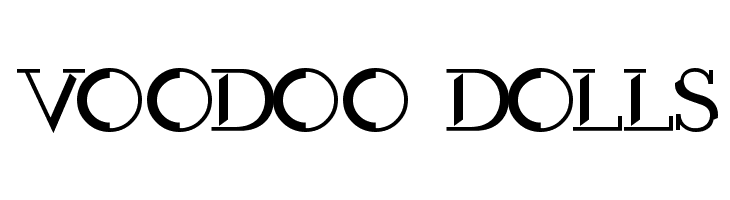
A festive font with Santa faces and gift box letters, perfect for holiday themes.
A bold, high-contrast serif font with dramatic and elegant features.
A bold, expressive font with an artistic, hand-painted style and ink splatter effects.
A creative, hand-drawn font with dynamic, brush-like strokes.
A dynamic and expressive handwritten font with fluid strokes.
A bold, playful font with a cartoonish, dynamic style and thick outlines.
A bold, playful handwritten font with a chunky, informal style.
A bold, graffiti-inspired font with a dynamic and playful style.
A playful, handwritten-style font with a casual and dynamic feel.
A lively, handwritten font with playful and dynamic letterforms.
A bold, expressive handwritten font with dynamic strokes.
A playful, handwritten font with tall, narrow letters and bold strokes.
A bold, handwritten font with a playful and casual style.
A whimsical, acorn-themed decorative font with uppercase letters.
A playful, baseball-themed font with characters enclosed in baseball shapes.
A playful, crayon-like font with a hand-drawn, whimsical style.
A decorative font with bee and floral motifs, offering a whimsical and elegant style.
A decorative font with intricate kaleidoscope-inspired geometric designs.